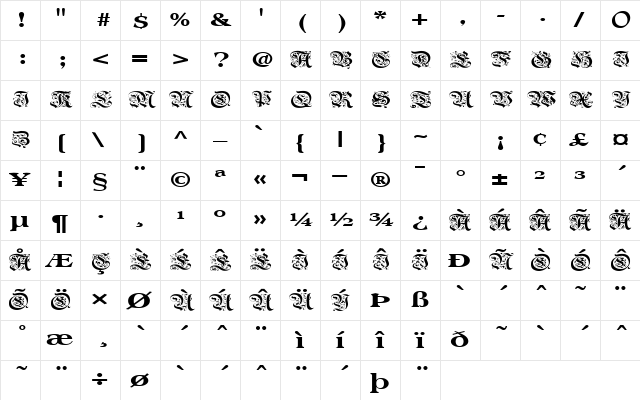
RoyalBaseExt Regular
RoyalBaseExt Family
RoyalBaseExt Regular
Complete RoyalBaseExt Regular glyph index. Displaying only characters natively supported by RoyalBaseExt Regular font.
Design Context for RoyalBaseExt
RoyalBaseExt is a composed and adaptable typeface that performs quietly and consistently across a wide range of design contexts.